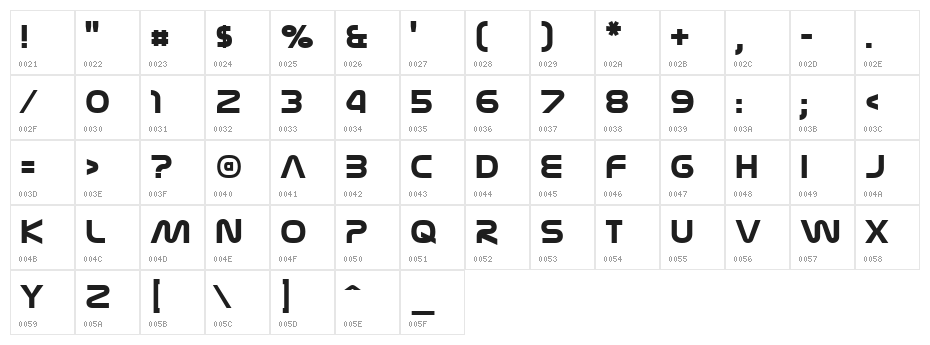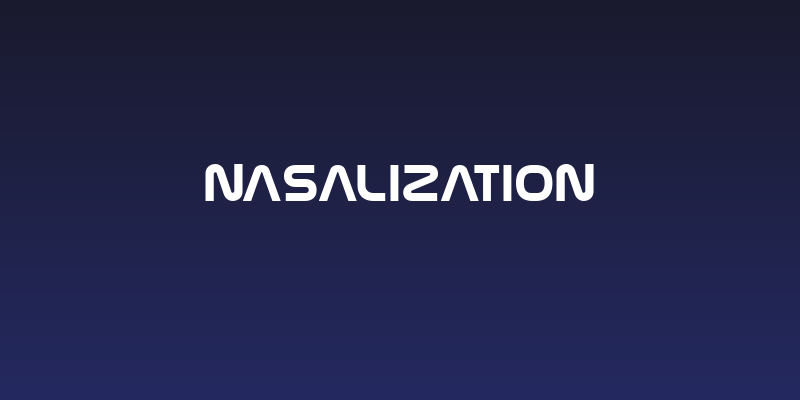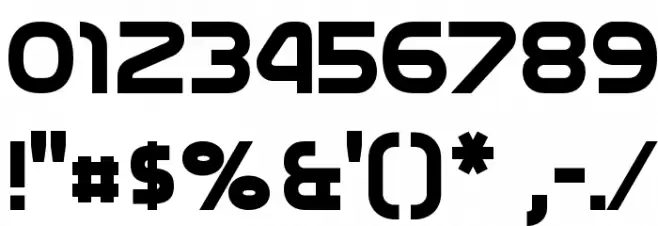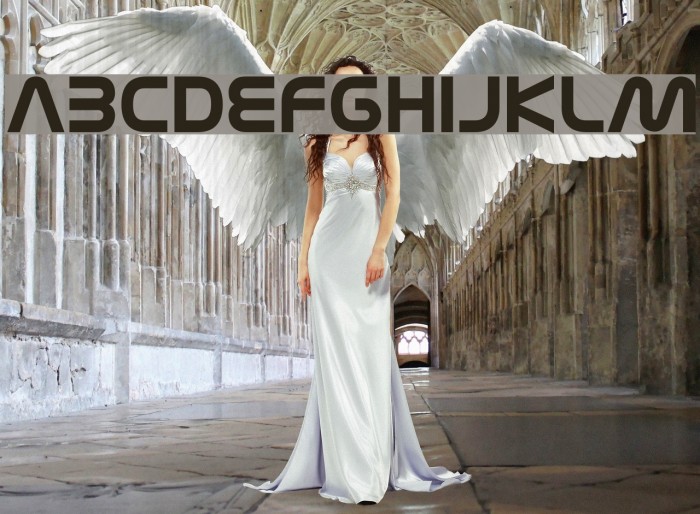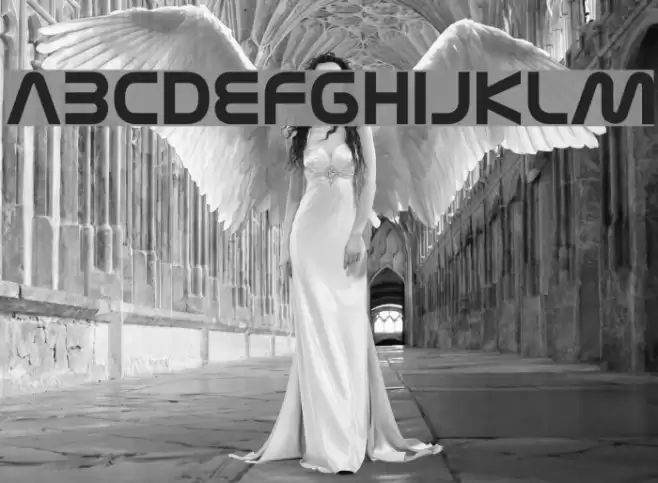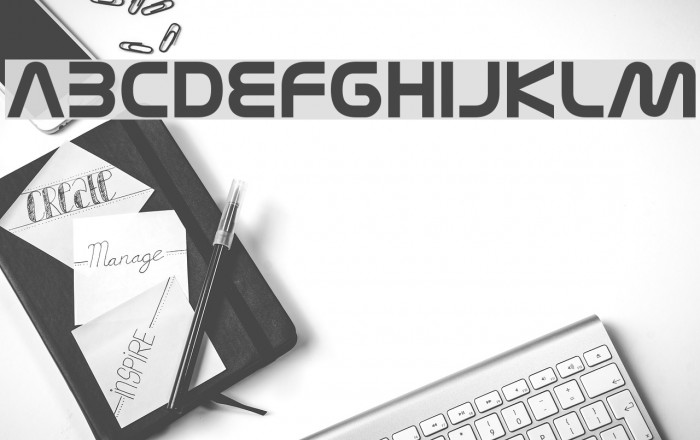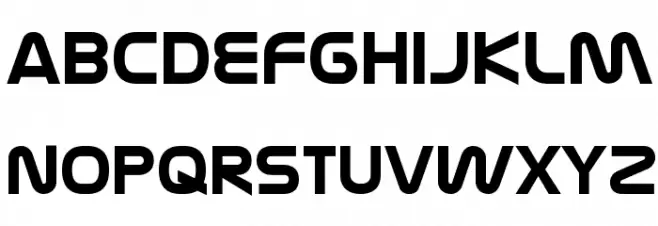
Nasalization Font
Nasalization Description
This font features a bold and futuristic design with a distinctly geometric structure. The characters are crafted with smooth curves and sharp angles, creating a dynamic and modern appearance. The uppercase letters have a unique style, with some characters like 'A' and 'M' having a distinctive slant, while others like 'Q' and 'R' incorporate unexpected cuts and lines. The numerals are equally bold, maintaining the geometric theme with consistent stroke thickness. Special characters are designed to match the overall aesthetic, making this font suitable for a variety of creative applications.